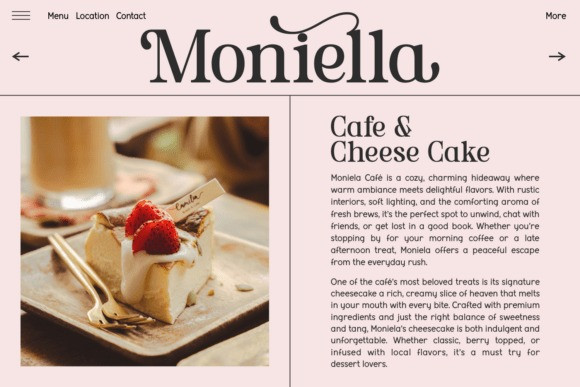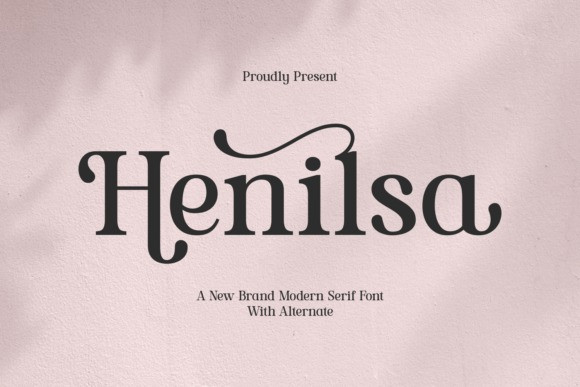
Henilsa Font
Henilsa Font, a new brand modern serif font. The font is distinguished by its elegant and unique alternate characters, such as the prominent swash, which gives it a romantic and decorative flair.